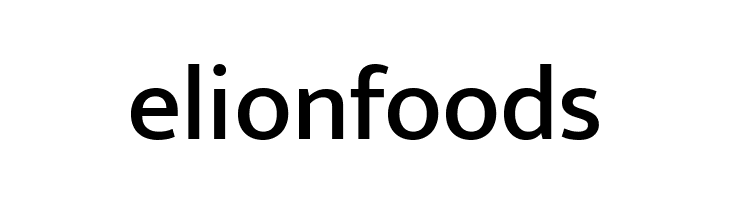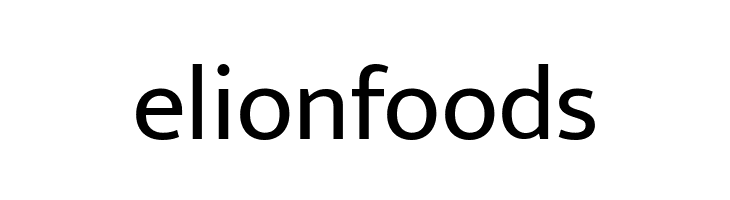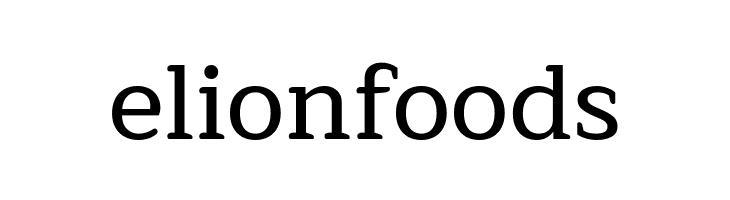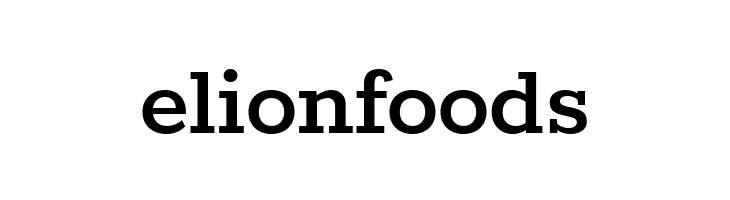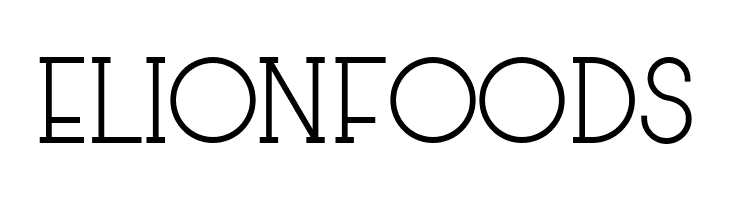
A modern sans-serif font with semi-expanded proportions and a semi-bold weight.
A modern, semi-expanded sans-serif font with excellent legibility and balanced proportions.
A modern, thin sans-serif font with semi-expanded proportions and excellent readability.
A classic serif font with elegant proportions and refined serifs.
A modern sans-serif font with balanced proportions and smooth curves.
A modern sans-serif font with clean lines and balanced proportions.
A modern sans-serif font with balanced proportions and smooth curves.
A modern, light sans-serif font with smooth curves and balanced proportions.
A modern sans-serif font with rounded terminals and balanced proportions.
A classic serif font with elegant proportions and moderate contrast.
A classic serif font with elegant proportions and medium contrast.
A modern, geometric sans-serif typeface with balanced proportions and smooth curves.
A modern sans-serif font with balanced proportions and clear legibility.
A refined serif typeface with balanced proportions and elegant details.
A modern, geometric sans-serif font with balanced proportions and clear legibility.
A modern serif font with balanced proportions and subtle elegance.
A modern, geometric sans-serif font with balanced proportions and a professional appearance.
A modern slab serif font with strong geometric serifs and balanced proportions.
A modern serif font with clean lines and balanced proportions.
A classic serif typeface with elegant proportions and refined serifs.
A modern serif font with balanced proportions and clear readability.
A modern serif font with clean lines and balanced proportions.
A modern serif font with sharp edges and balanced proportions.
A modern, geometric font with rounded edges and balanced proportions.
A modern serif typeface with elegant, refined letterforms and balanced proportions.